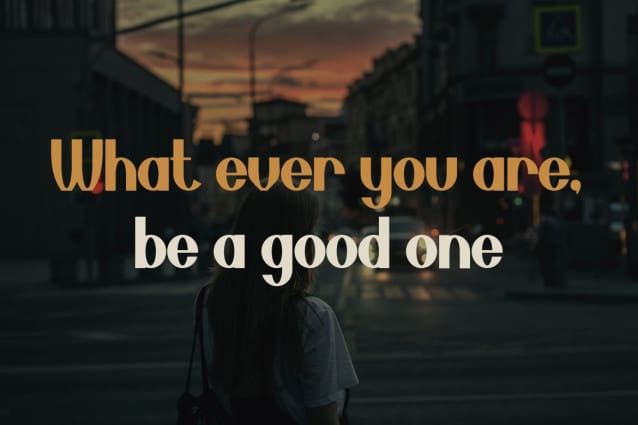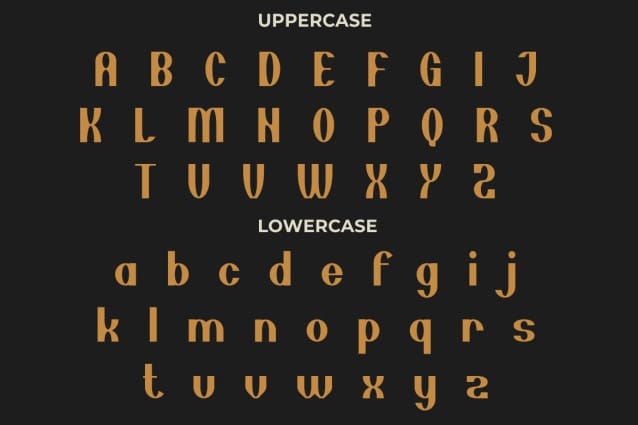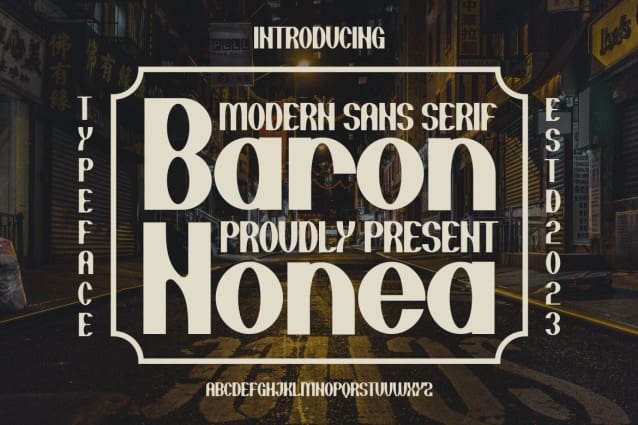
Baron Nonea Font
Baron Nonea Font – Modern Font is a bold and authentic display font. The font is suitable for any branding projects such as logo, t-shirt printing, e-sports, etc. It stands out in a wide range of contexts.